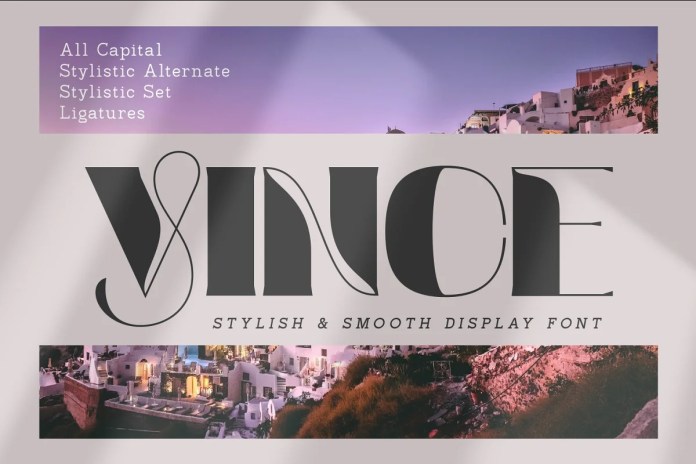
Vince Display 字体介绍
This Typeface designed by zeenesia is a stylish font It has both modern and retro look – clear, modern and fun. Each side of the character is carefully crafted so that this font has a premium quality.
The curve that has an integral point will be kept geometric and smooth. Ligatures and Stylistic Alternate work well to provide design variations. Versatile for building branding, invitations, logotypes, magazine headings and posters.
Vince suitable for various projects such as stationery invitations, social media, logos, weddings, branding, graphic design with the addition of several binders. and can be combined with various types of serif fonts to perfect the project you want to work on.